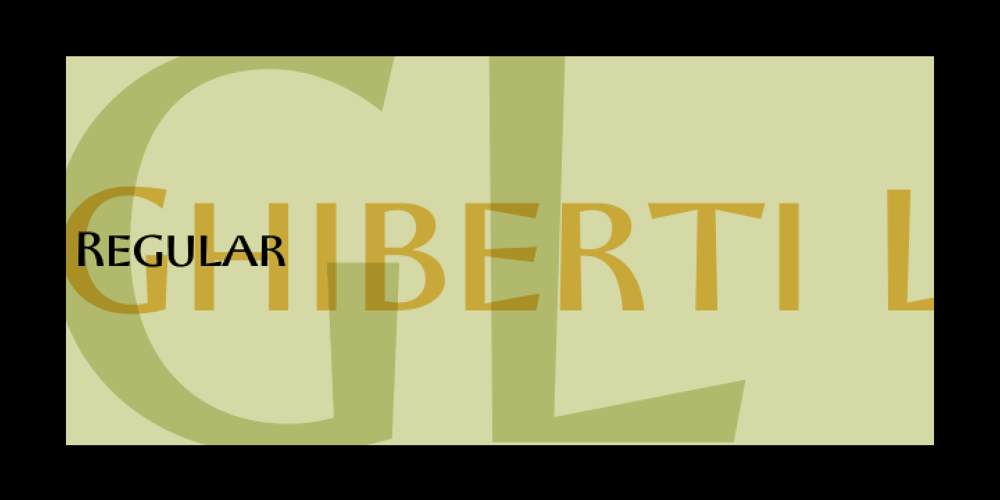
Ghiberti LP Font Family was designed by Garrett Boge, Paul Shaw and published by LetterPerfect. Ghiberti LP contains 1 styles and family package options. Ghiberti is a contemporary interpretation of the bold Florentine lettering style used with marble inlaid and bronze cast inscriptions of the fourteenth and fifteenth centuries. The font, consisting of caps and small caps, was designed by Paul Shaw and Garrett Boge in 1997. Ghiberti is part of the LetterPerfect Florentine Set.